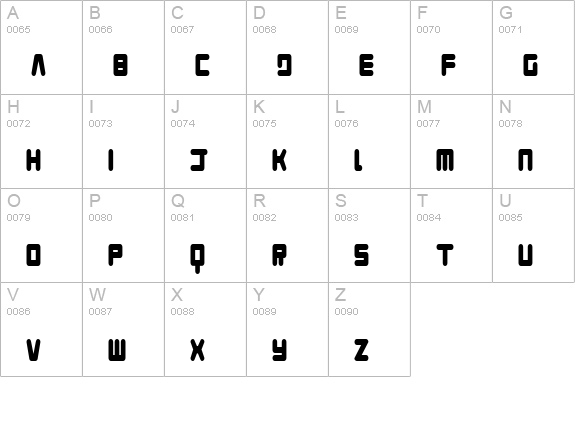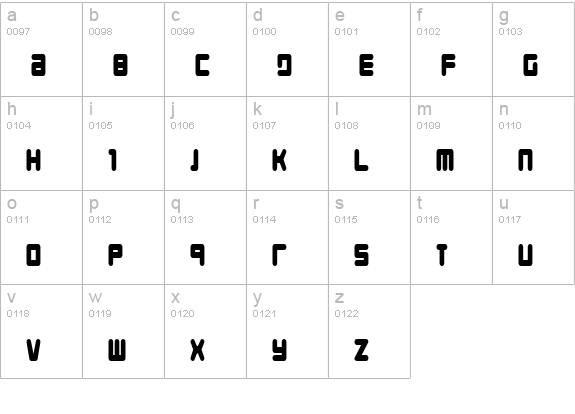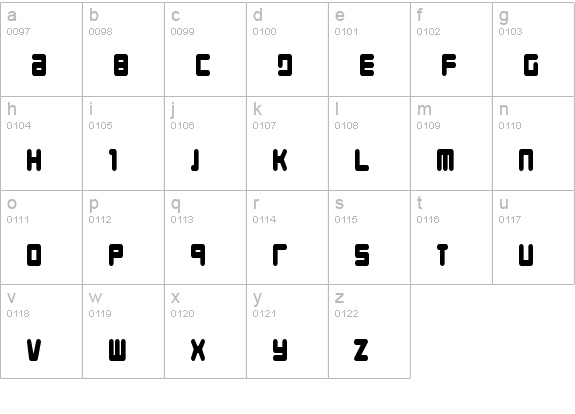
Young Techs Condensed Font Details
Young Techs Condensed is a distinctive, condensed-width variant in the Young typeface family \xE2\x80\x94 well suited to design and typography projects.
Young Techs Condensed font is a sleek and modern typeface perfect for tech-savvy designs. With its condensed style, it exudes a sense of efficiency and sophistication, making it ideal for a wide range of projects. The angular shapes and clean lines give this font a contemporary edge, making it suitable for websites, logos, branding, and more. Best of all, Young Techs Condensed font is available for free download at FontsMarket.com. This means you can easily access this stylish typeface without any cost, making it a valuable addition to your font collection. Don't miss out on the opportunity to enhance your designs with the dynamic and versatile Young Techs Condensed font. Download it today and let your creativity shine!